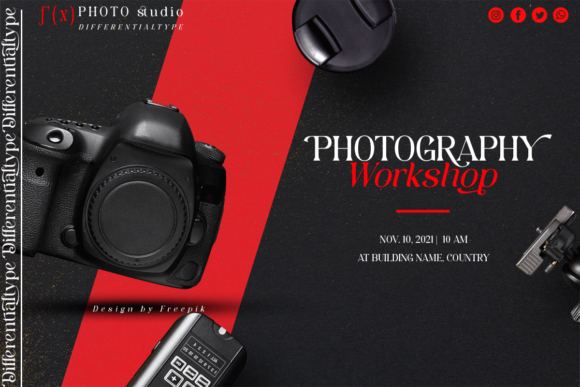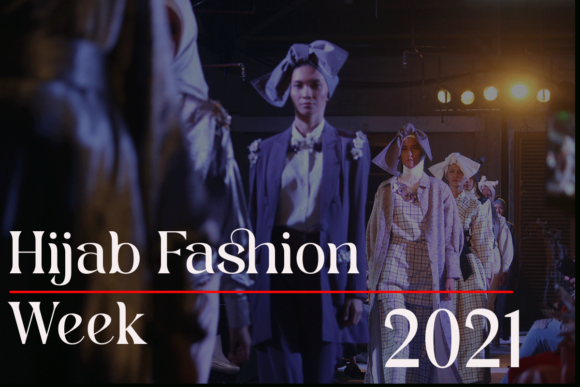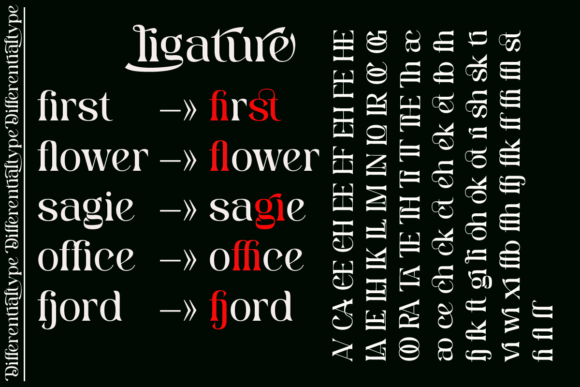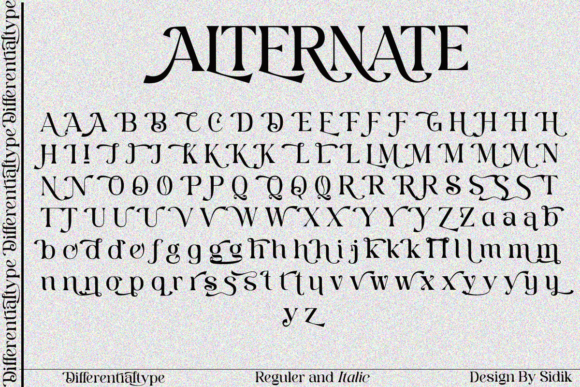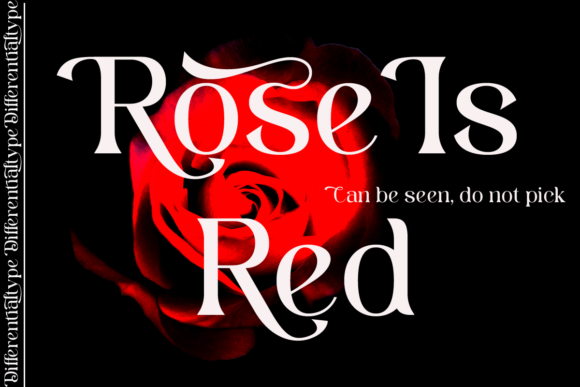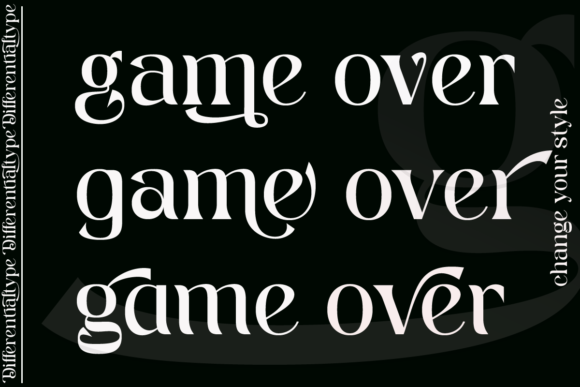
Introduction to Sefara Font
Sefara is a stylish and authentic serif font.
It has a classy, elegant and modern look that can be used for logos, branding, invitations, stationery, wedding designs, social media posts, and much more Sefara is PUA encoded which means you can access all glyphs and swashes with ease.
Key Features of Sefara Font
Sefara Font offers exceptional quality and versatility, making it a valuable addition to your design toolkit. Whether you’re creating for personal projects or commercial use, Sefara Font delivers professional results.